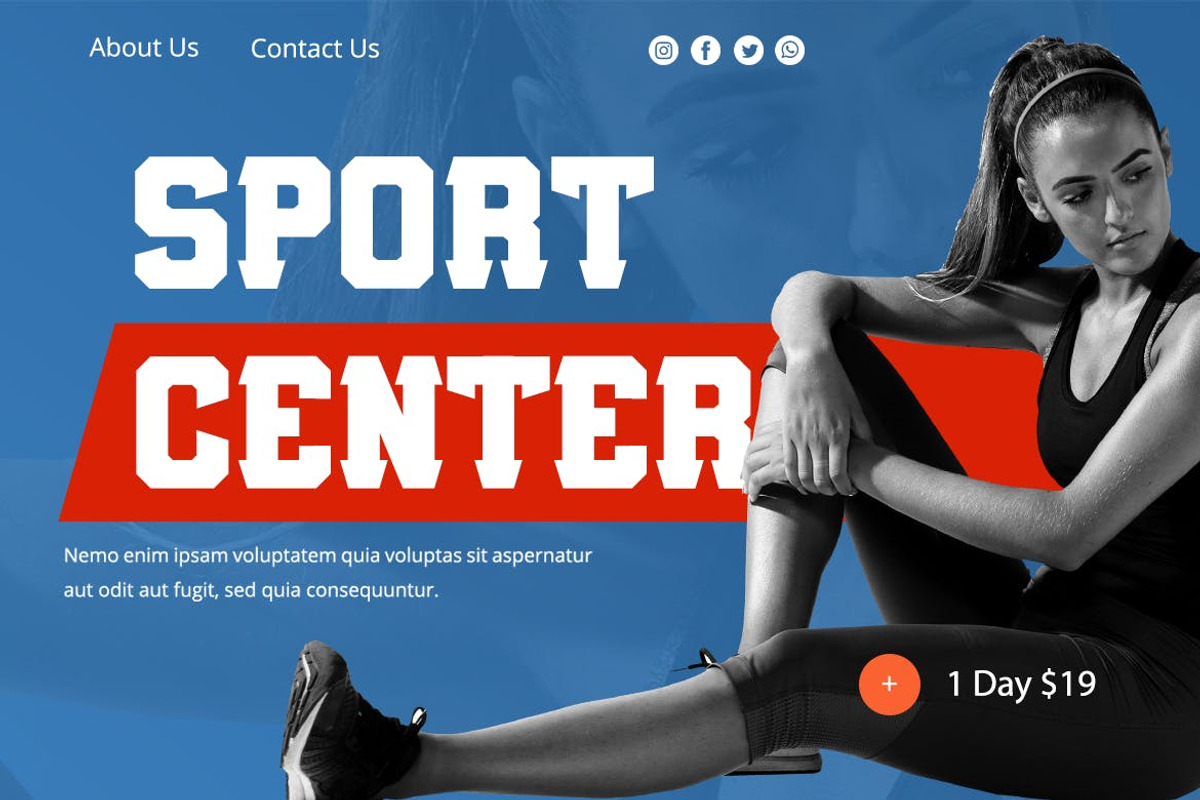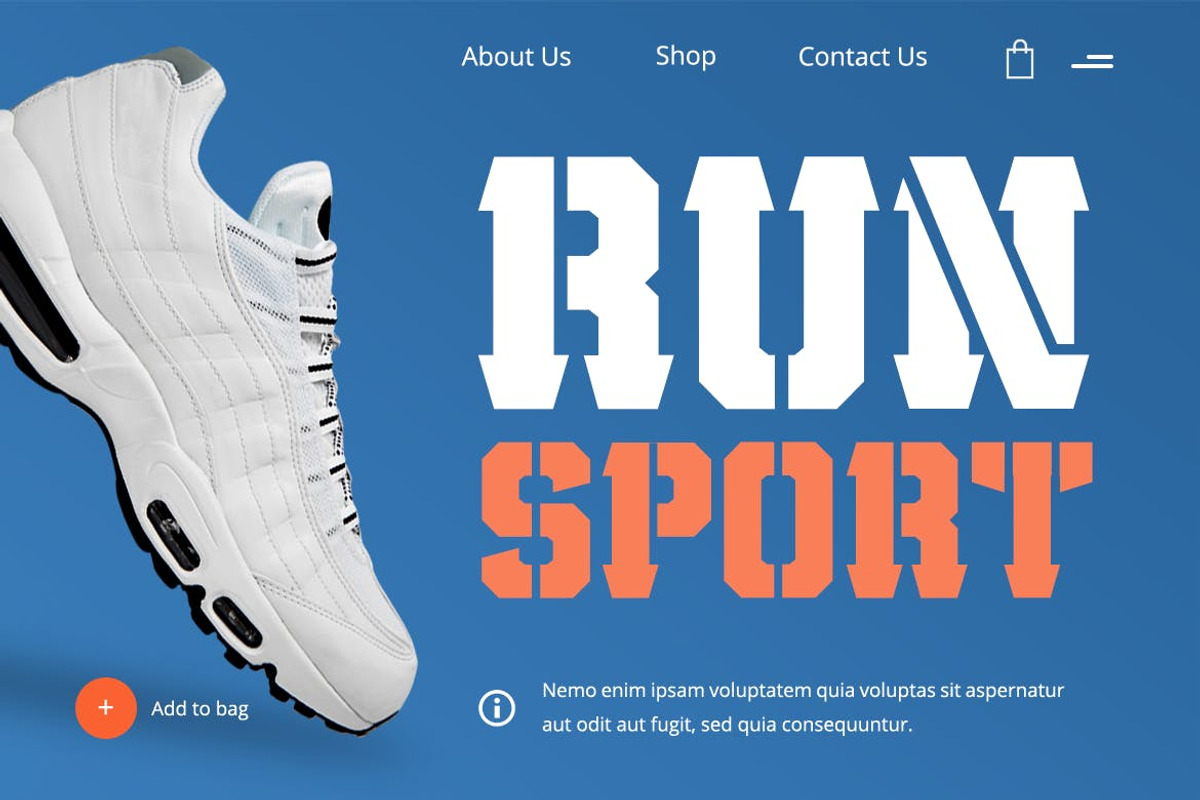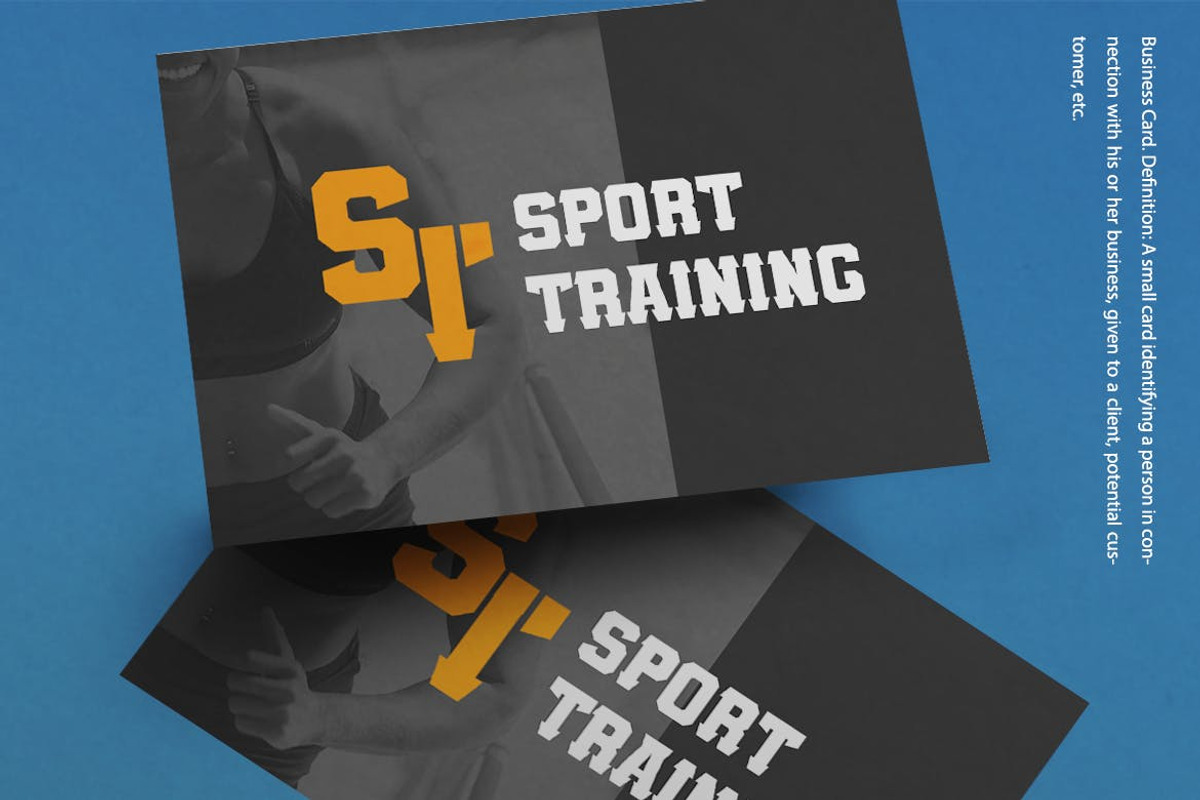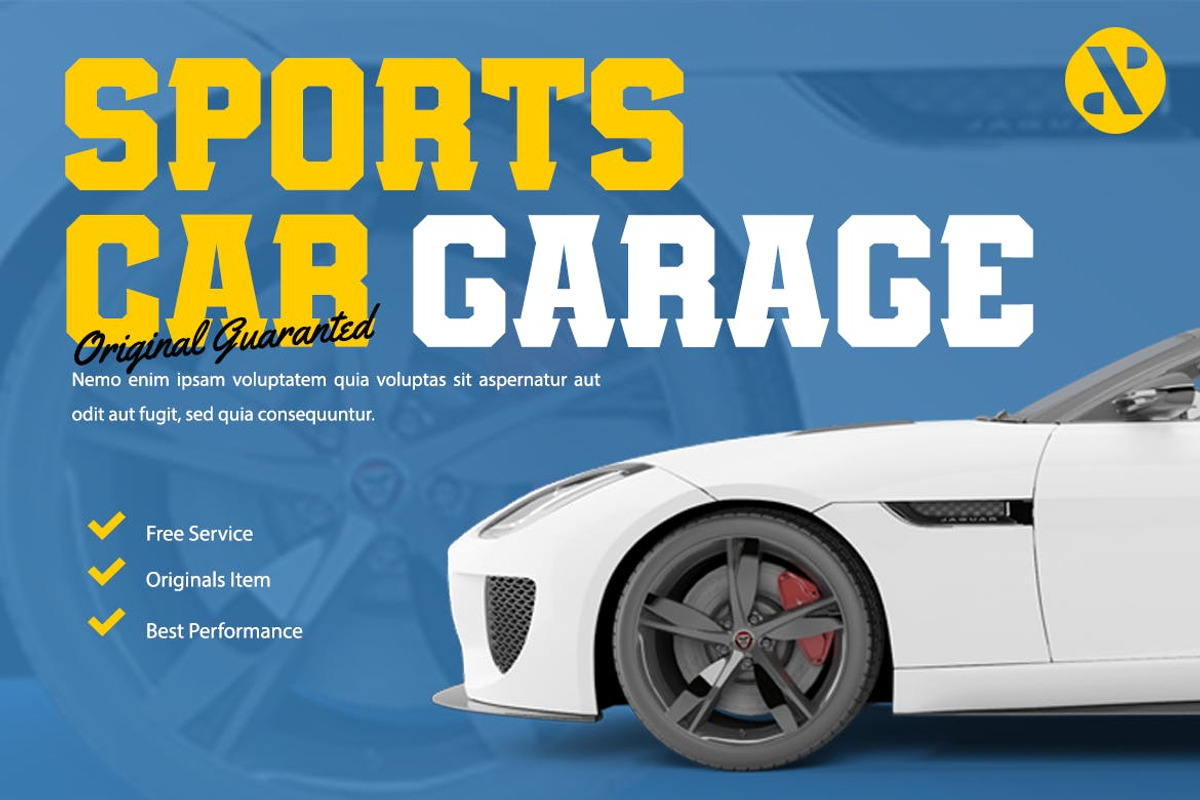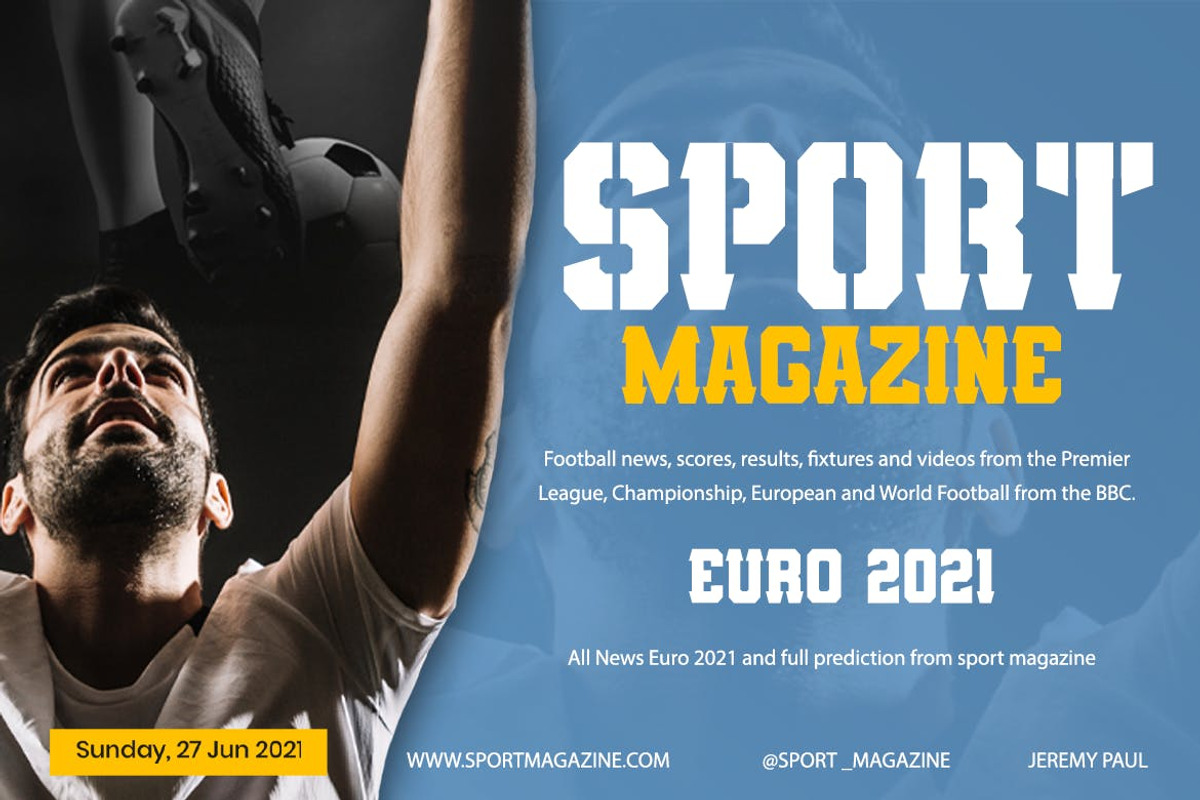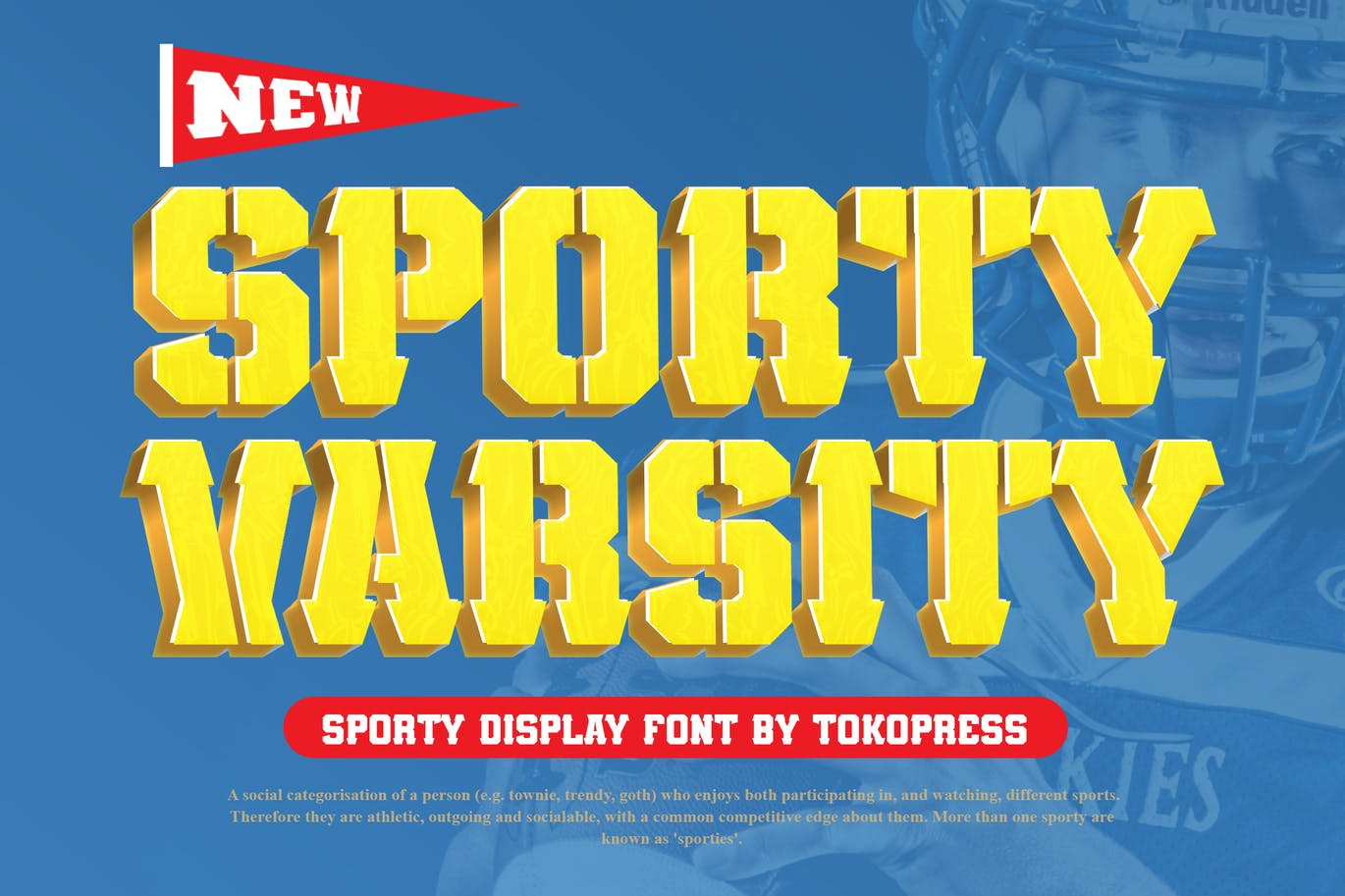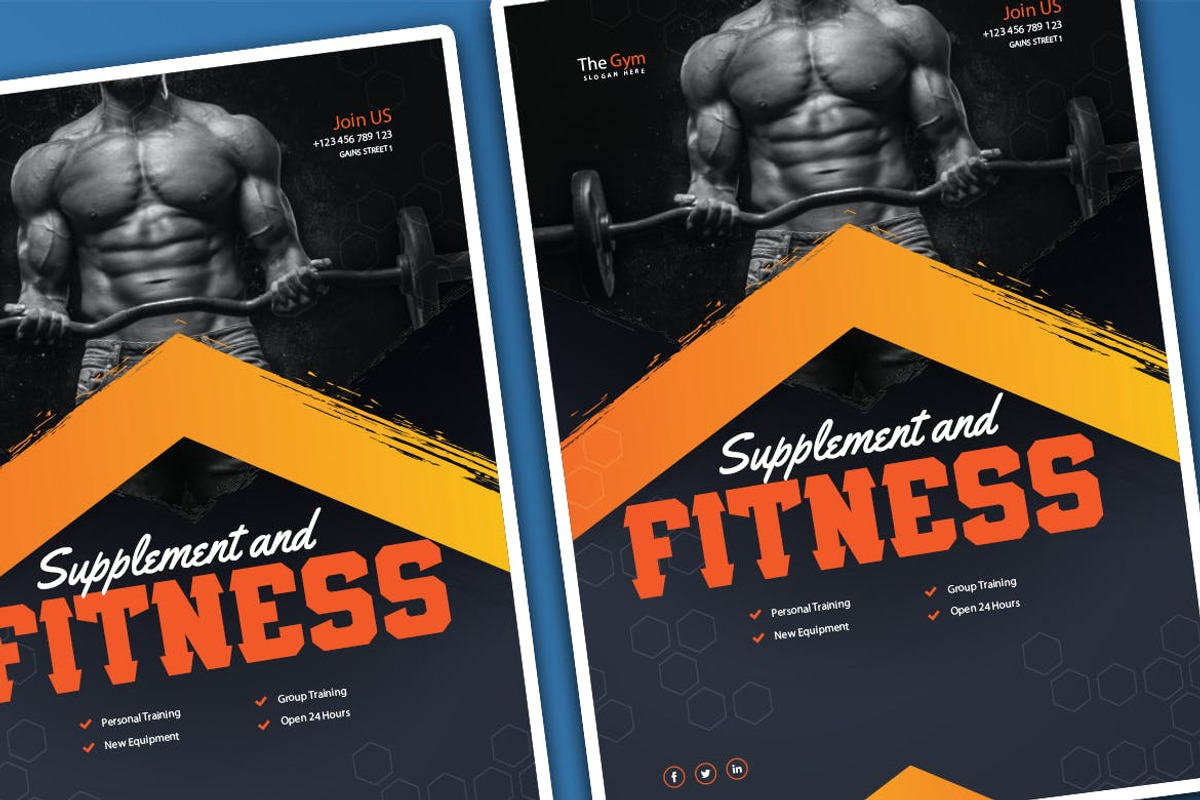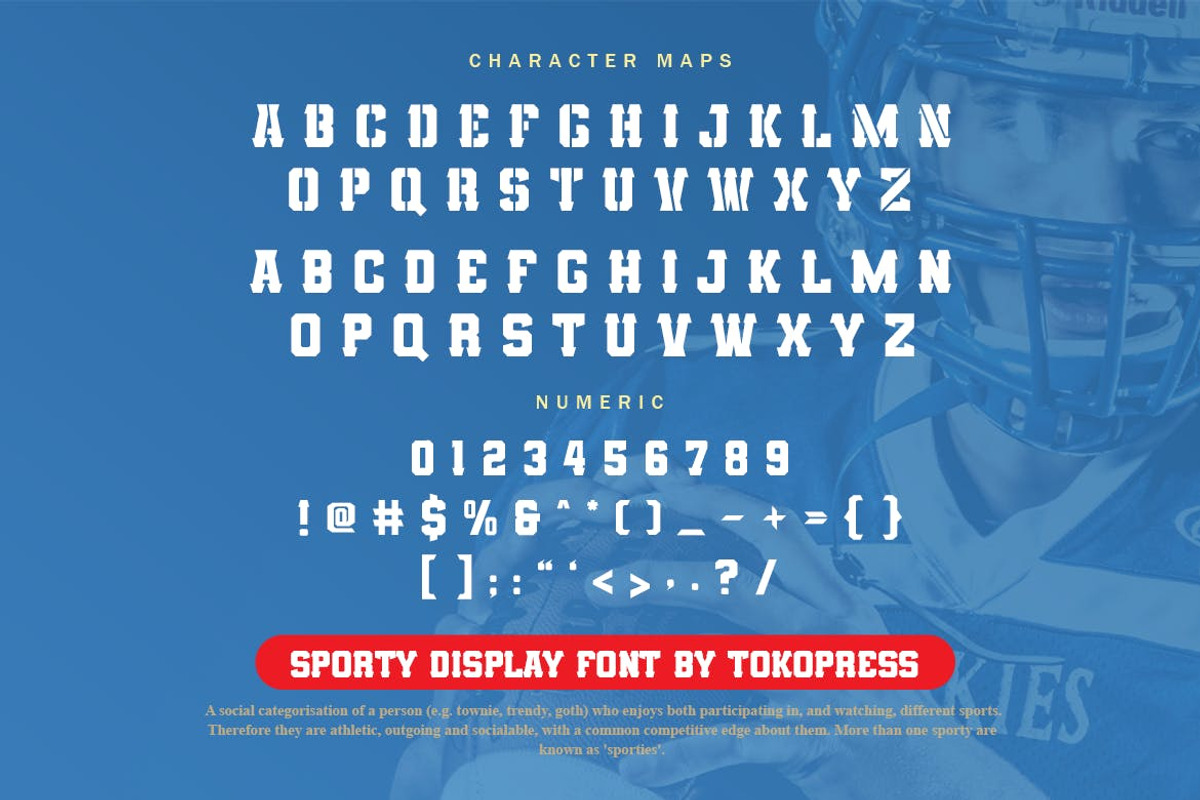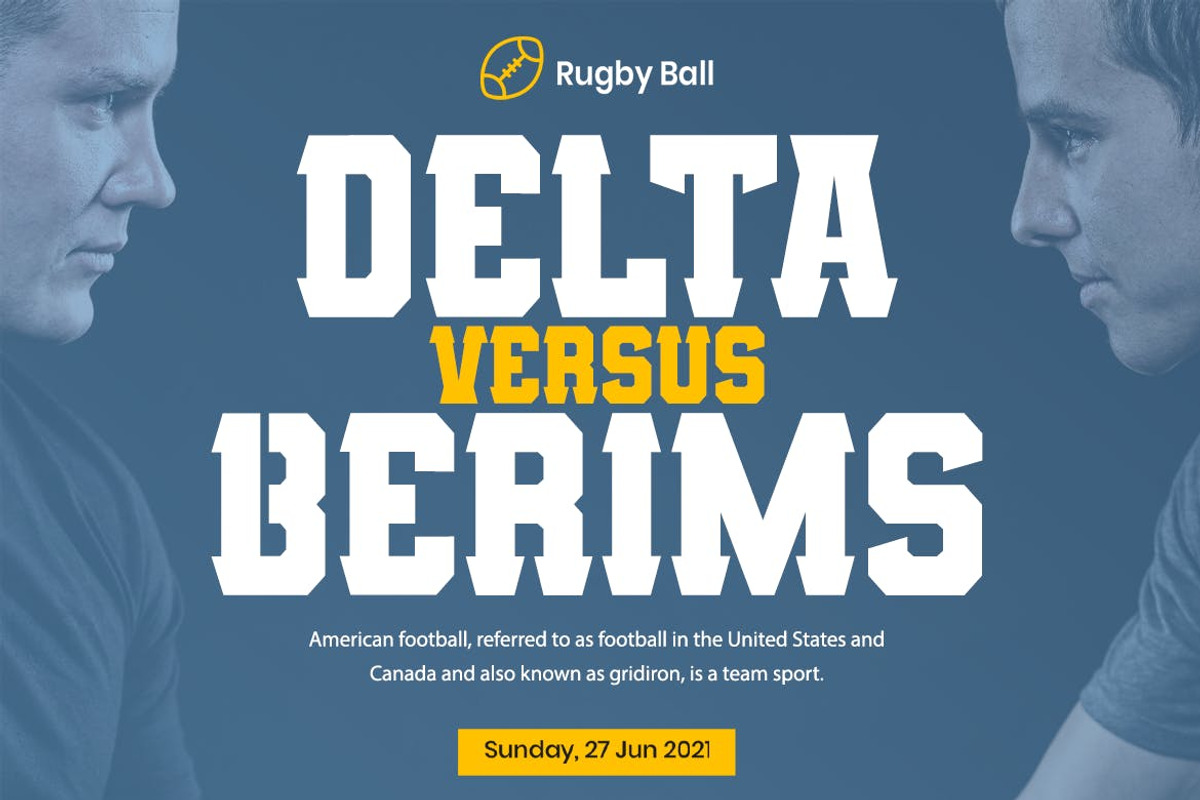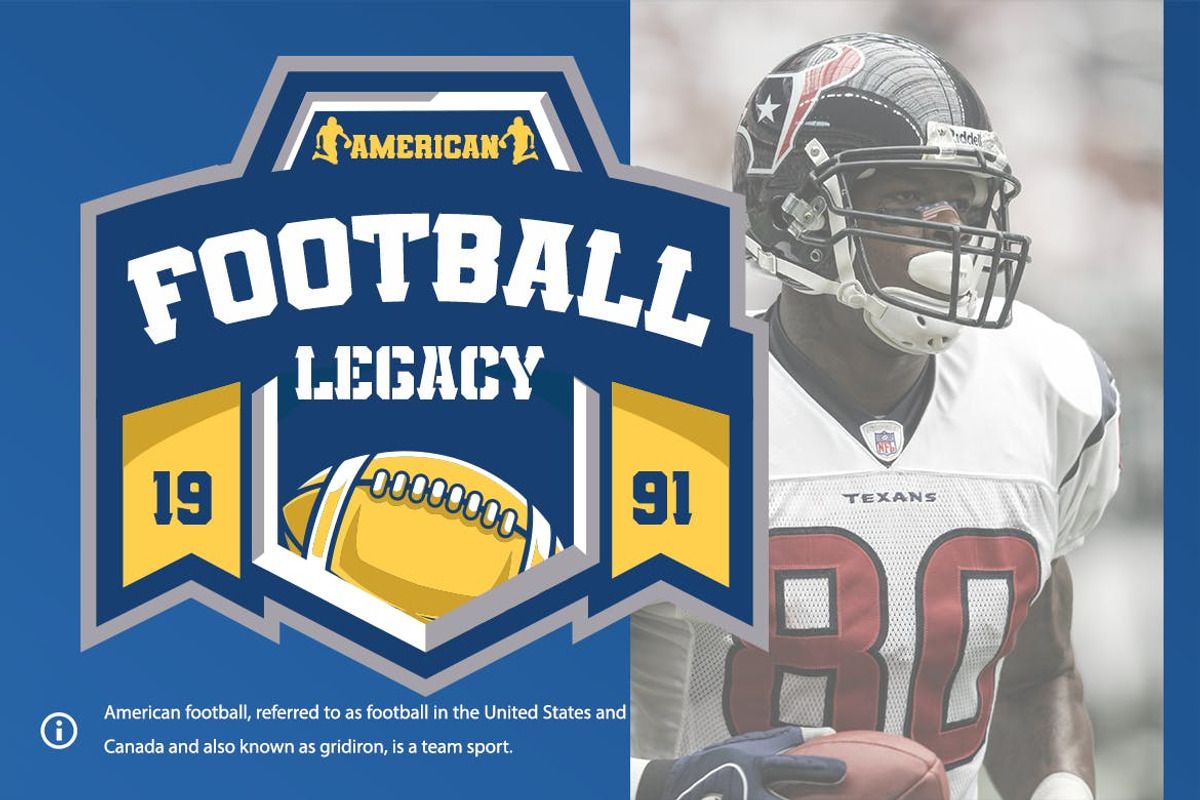
Sporty Varsity - Stencil Font
Sweat, cheer, goal, points.... and a champion in the making. Sporty Varsity will bring full energy to your project in full gas.
Suit perfectly for sporty gaming market audiences, racing posters, movie titles, magazines, youtube covers, youtube thumbnails, social media page covers and so on...
- Basic Latin A-Z and a-z, numbers, punctuations